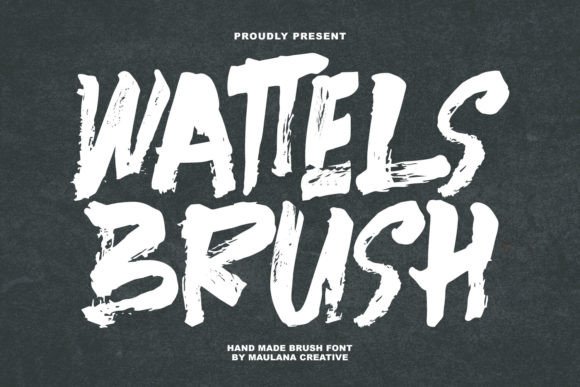
Journey into the realm of captivating expression with Wattels Brush Font, a script typeface born from the heart of creativity. This meticulously crafted font family captures the essence of handwritten artistry, effortlessly adding a touch of authenticity and charm to your designs. As a member of the script font family, Wattels Brush excels in bringing an organic, personal touch to your projects, whether they be logos, stationery, or typography quotes. Its free-flowing strokes and natural-looking variations evoke a sense of genuine craftsmanship, making it the perfect choice for those seeking a font that speaks to the heart.
Immerse yourself in the versatility of Wattels Brush Font, a font that seamlessly adapts to a myriad of design projects. Its graceful curves and expressive style lend themselves beautifully to creating eye-catching magazine or book covers, leaving a lasting impression on your readers. Unleash your creativity as you craft stunning website headers that captivate visitors with a handwritten charm that sets you apart from the ordinary.
With Wattels Brush Font, your designs transcend the boundaries of the digital realm, transforming into tangible works of art. Picture your designs adorning clothing, branding materials, and packaging design, each element imbued with a unique, handmade quality that elevates your brand and resonates with your customers. Let Wattels Brush Font guide you as you embark on a creative journey, leaving a trail of inspiration and individuality wherever your designs may lead.